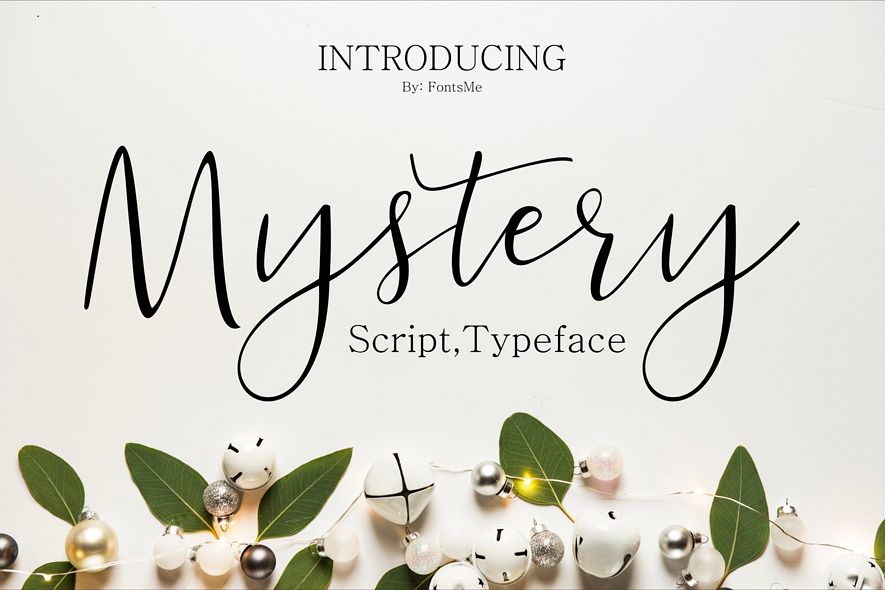
Mystery
Mystery fonts script
This modern calligraphy script has been attentively written, with gentle curves to produce a font thats completely distinctive and original. It contains a full set of lower & uppercase letters, a large range of punctuation, numerals, and multilingual support. Perfect for adding a elegant and unique touch to your lettering projects and brandingAlso with their help, you can create a Wedding lettering or beautiful frame for your home. Or just use for your small business, book covers, stationery, marketing, magazines and more.
Cyrillic alphabet included
Multilingual support